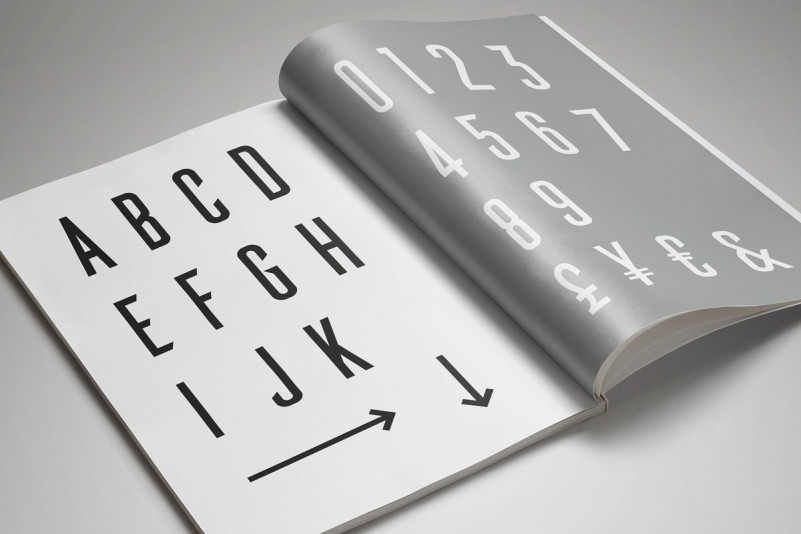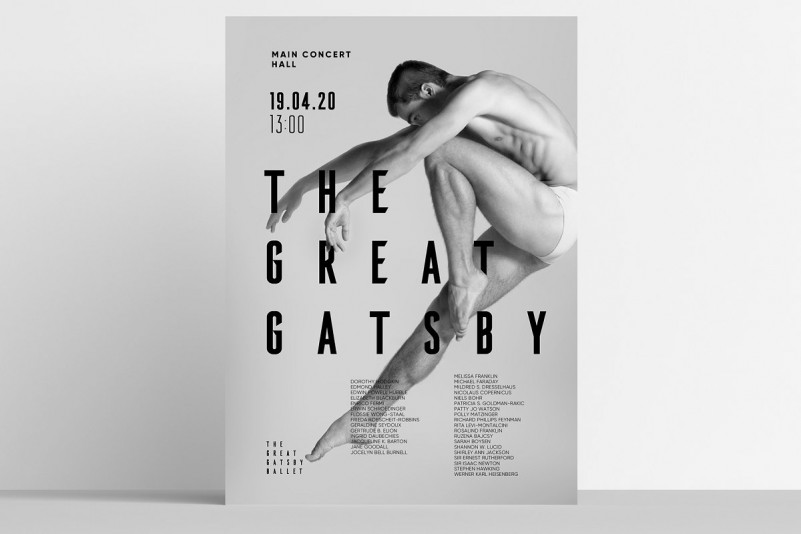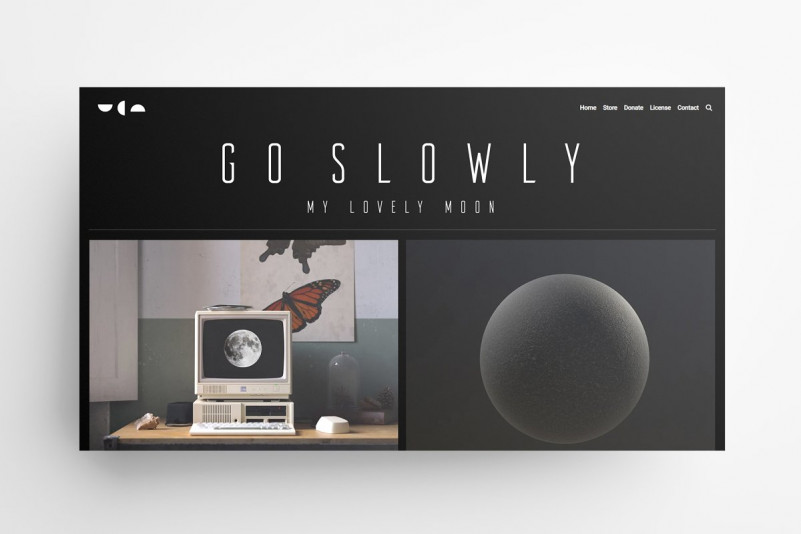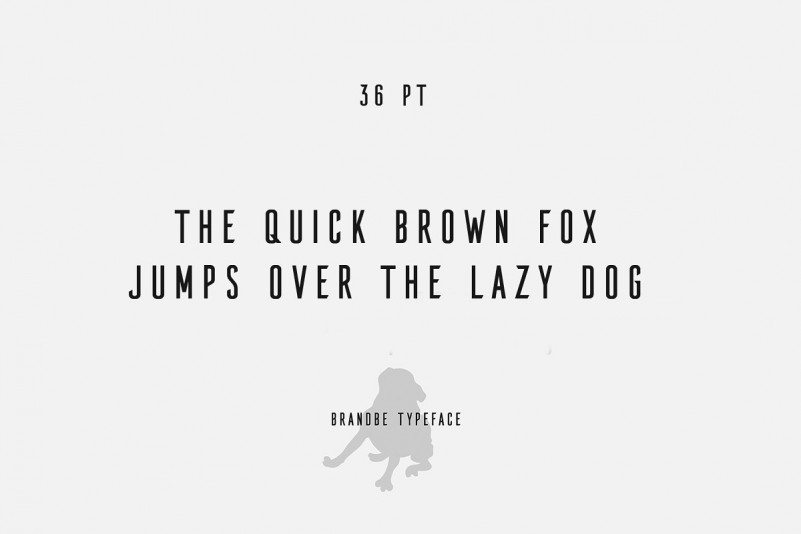
Brandbe Sans Font Family
Brandbe Sans Font Family is a modern sans serif font family whose design refers us to the style of modern sans serif. This font has a geometric shape and carefully adjusted to look elegant and minimalist! It’s an created by Roman Polishchuk. It’s a clean and compressed font family, that features sharp glyphs. Each font looks amazing in large headlines. It’s works great in any branding, logos, magazines, packaging. Each style contains a set of 401 characters supporting 207 languages..